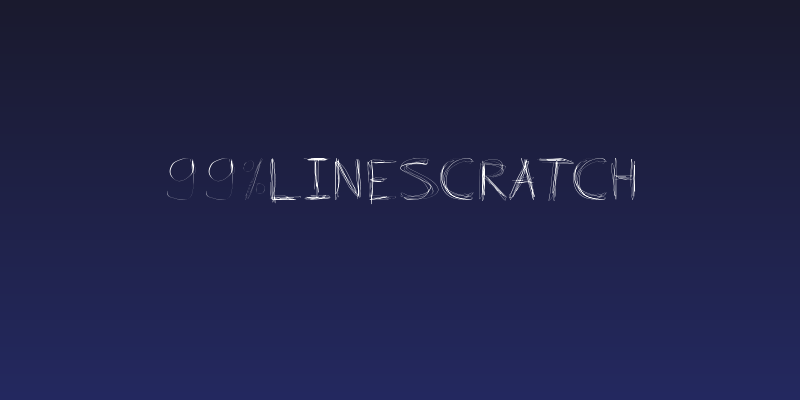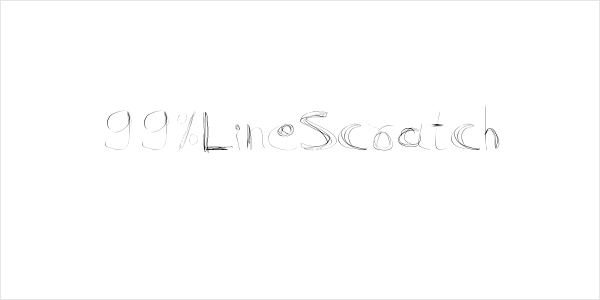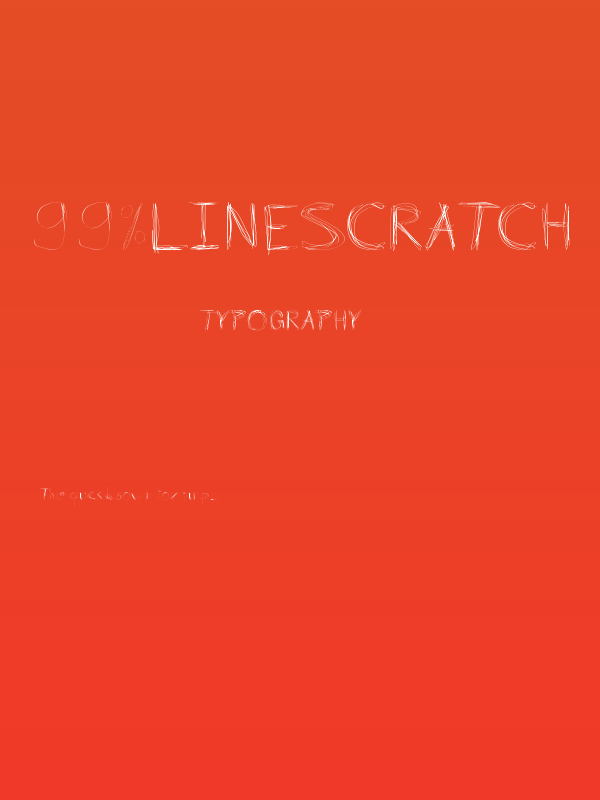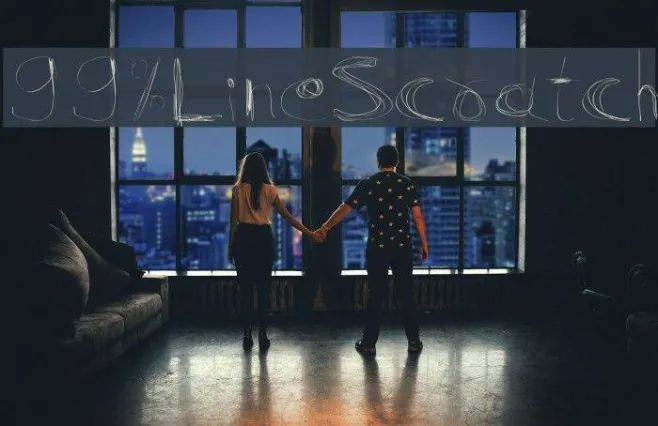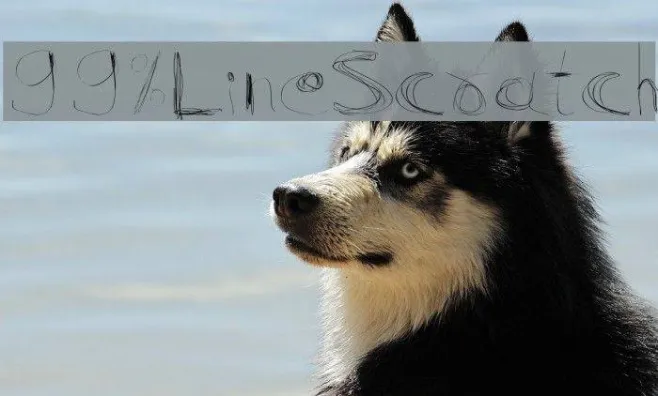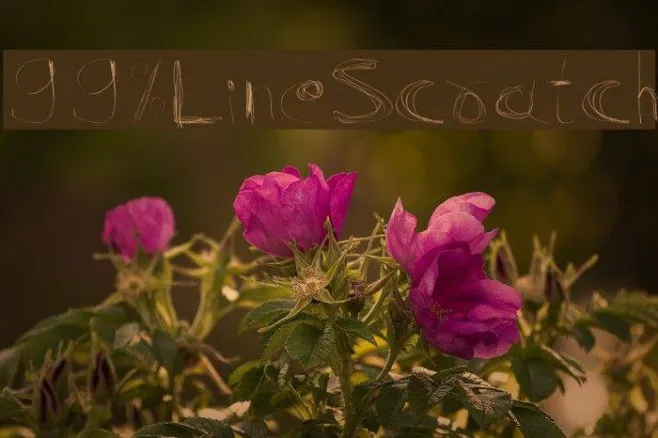
99%LineScratch Font
99%LineScratch Description
This font exhibits a unique, hand-drawn style with a scratchy, textured appearance. The characters are irregular and have a rough, sketch-like quality, giving them a dynamic and energetic feel. The uppercase and lowercase letters maintain a consistent style, with varying line thicknesses that add to the overall distressed look. Numbers and special characters follow the same aesthetic, ensuring a cohesive appearance across all glyphs. This font is ideal for projects that require a raw, artistic touch, such as album covers, posters, or creative branding materials. Its distinct style makes it stand out, capturing attention with its unconventional design.
| Overall Style | Artistic, Raw, Sketch-like |
| Use Case | Headlines, Artistic projects, Creative branding |
| Proposed Projects | Album covers, posters, creative branding, artistic projects. |